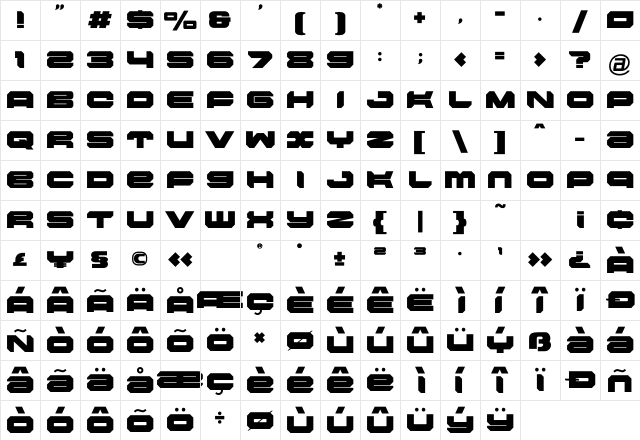
Super Ultra Supra Two Free Font
Super Ultra Supra Two
Foundry: Putracetol Studio, Karanganyar.
Designer: Putra Novembria Candra Kusuma
Design Context for Super Ultra Supra
Super Ultra Supra is a composed and adaptable typeface that performs quietly and consistently across a wide range of design contexts.